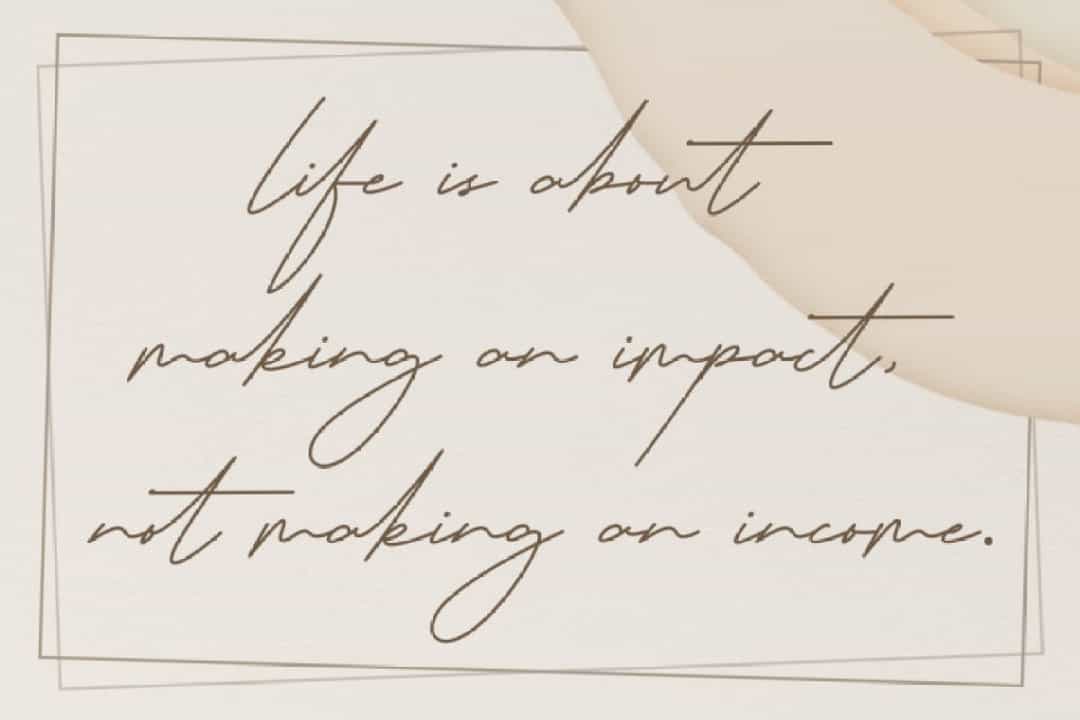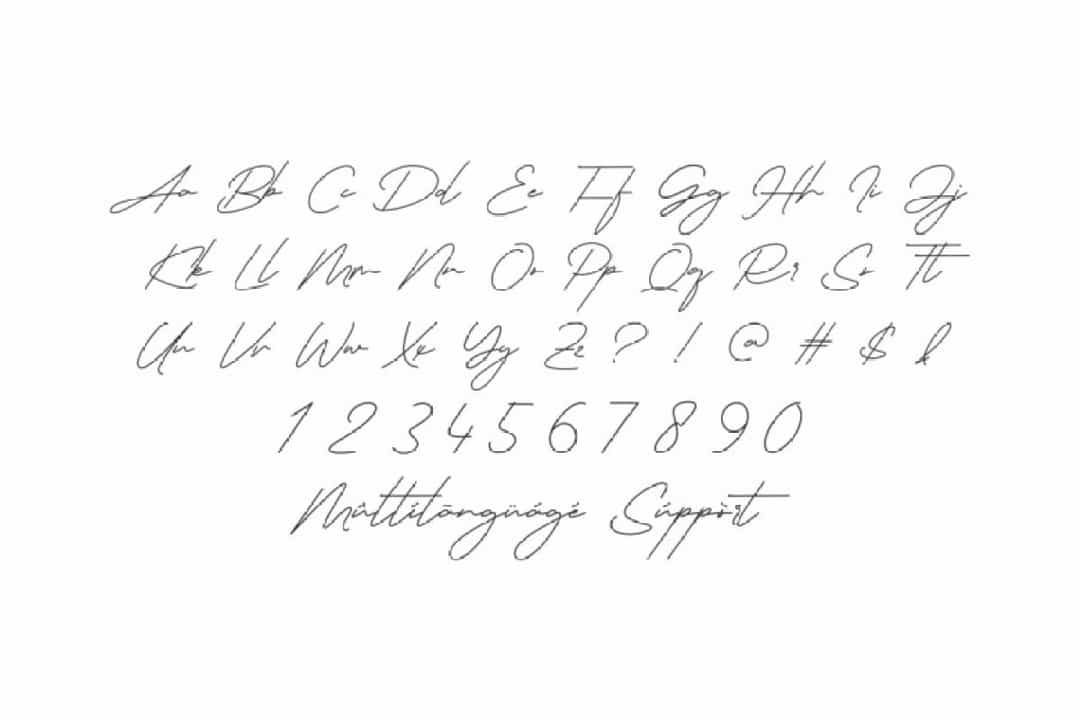
Royalister is a handwritten font designed by NihStudio Font Designers Saeful,Suci in the year 2020. Royalister is ideal for all projects that need an extended license, these include; branding, logos, stationery, business cards, stationary, signage, flyers, brochures among others.